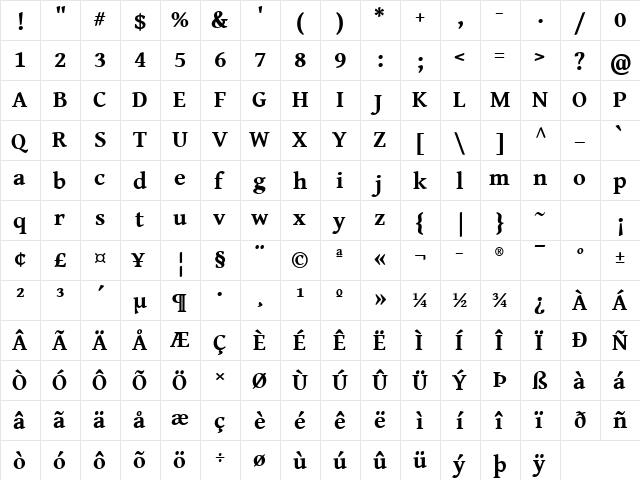
Gentium Book Basic Bold
| Foundry | SIL International |
| Designer | J. Victor Gaultney and Annie Olsen |
Design Context for Gentium Book Basic Typeface
Gentium Book Basic is a composed and adaptable typeface that performs quietly and consistently across a wide range of design contexts. The heavy weight commands attention and anchors typographic hierarchies.